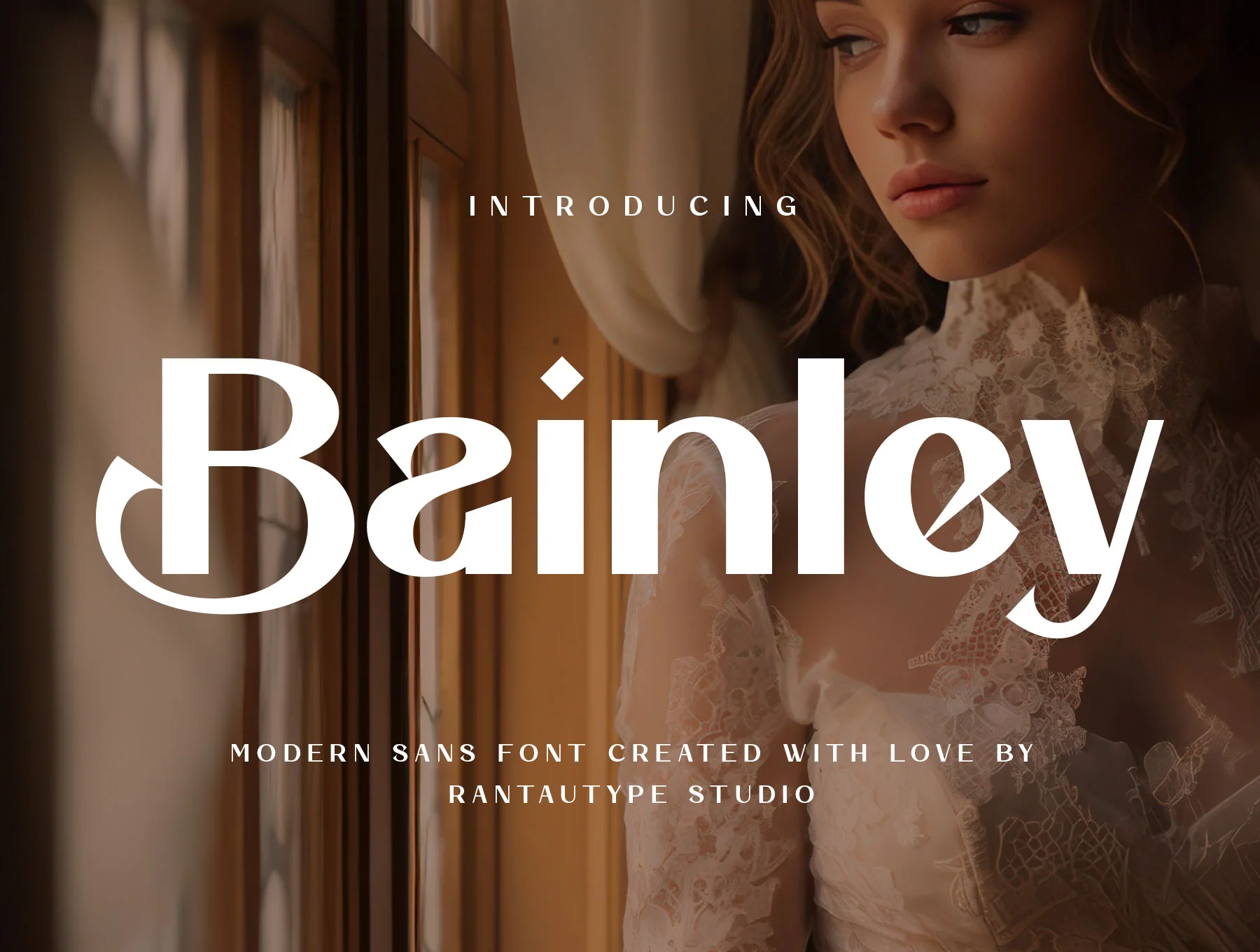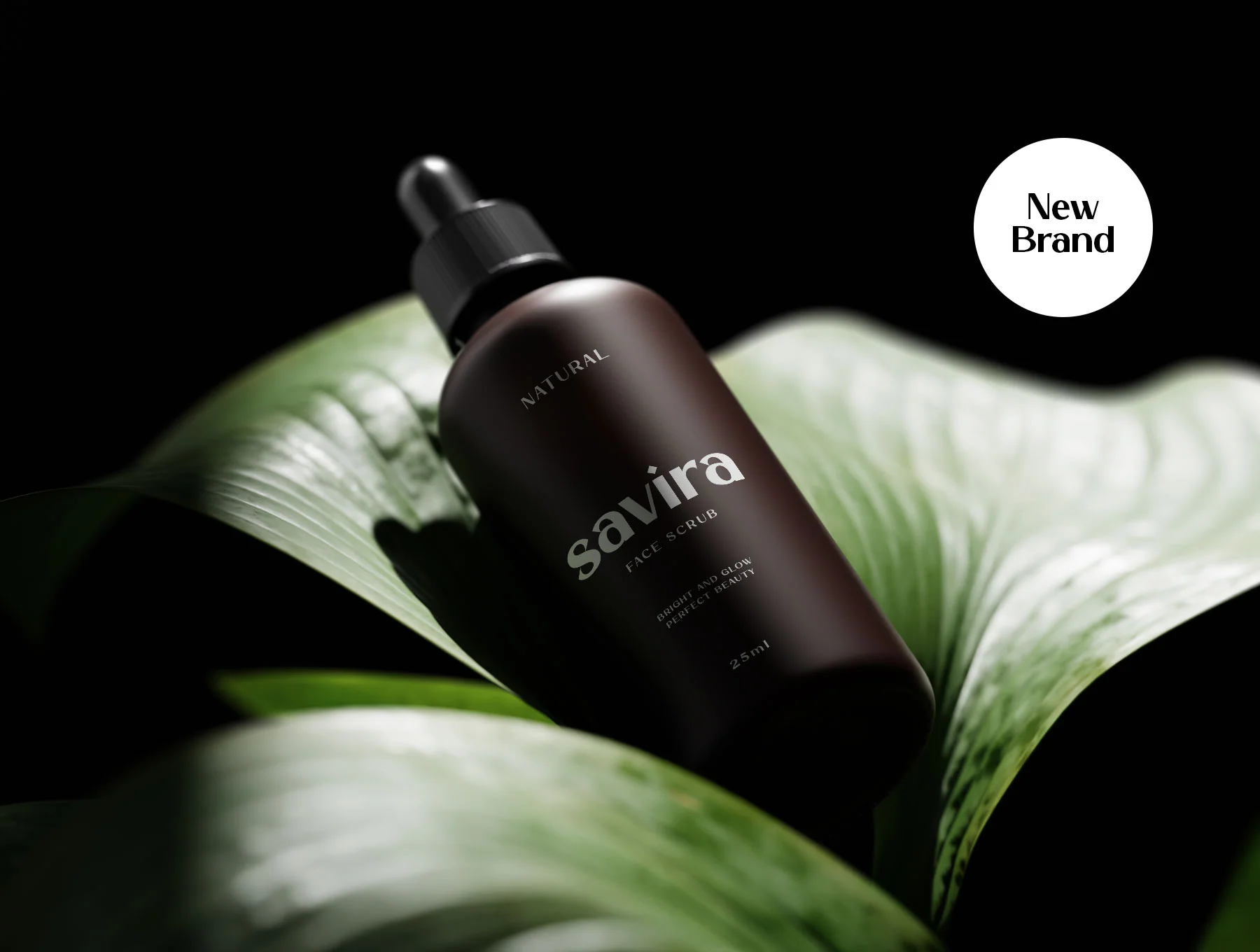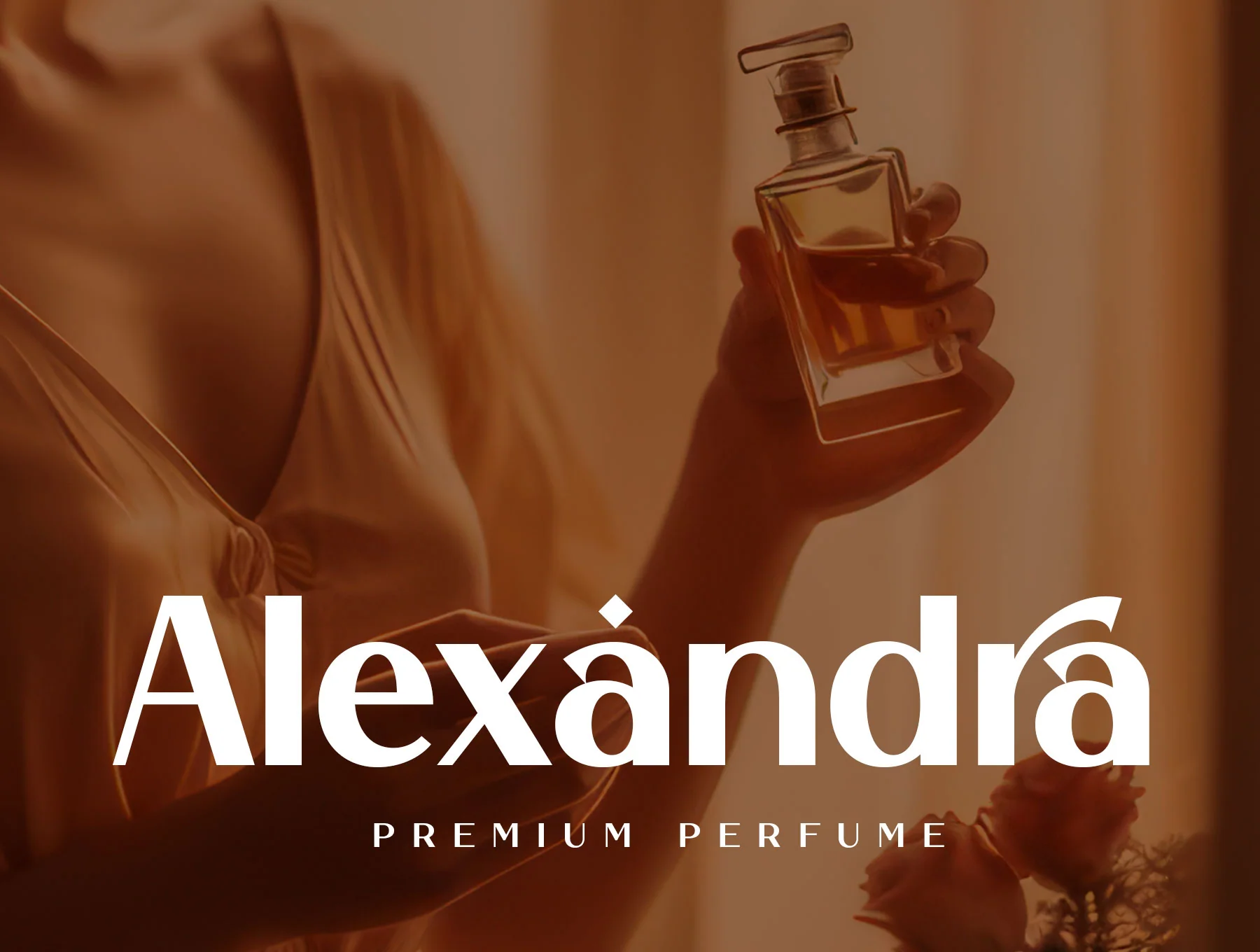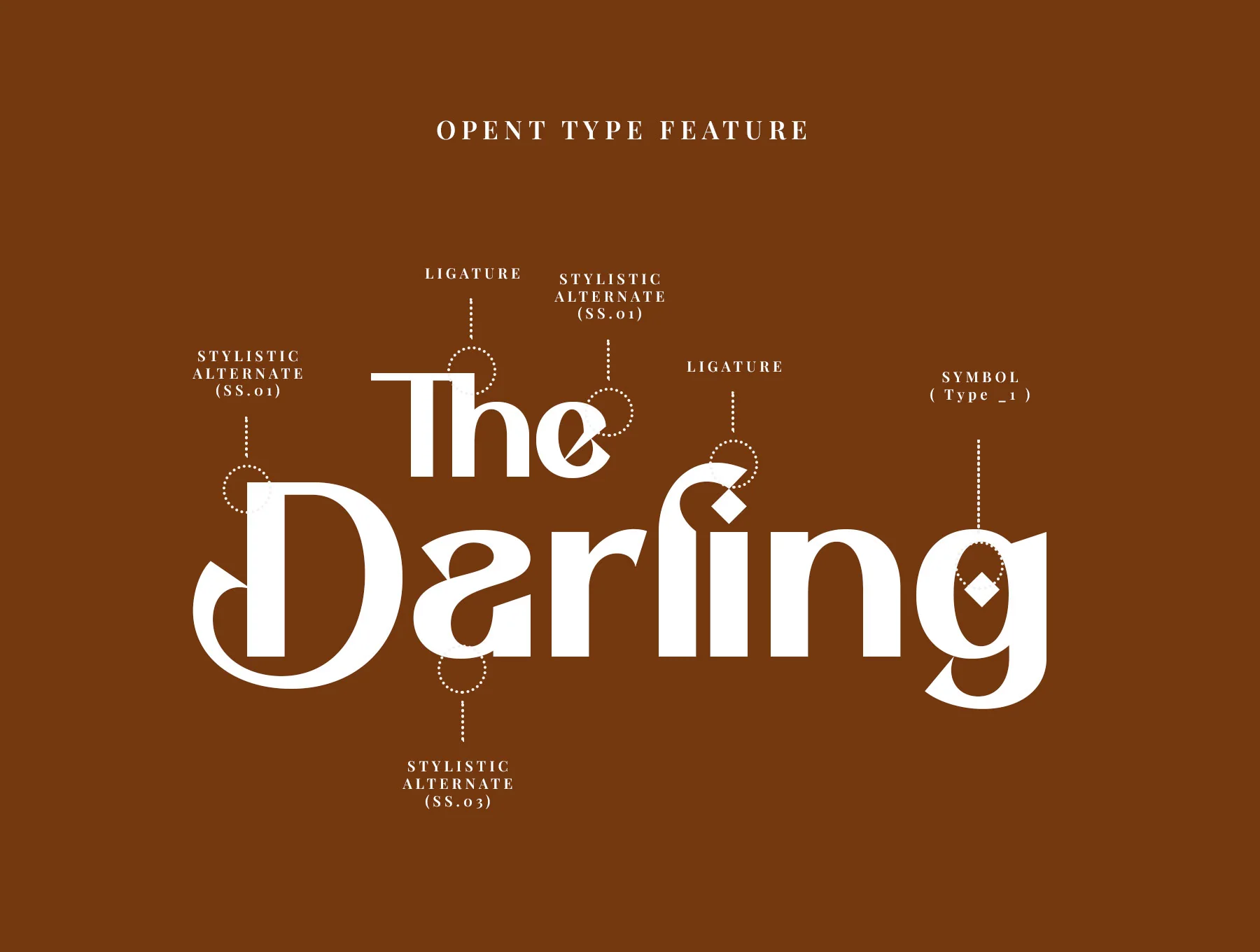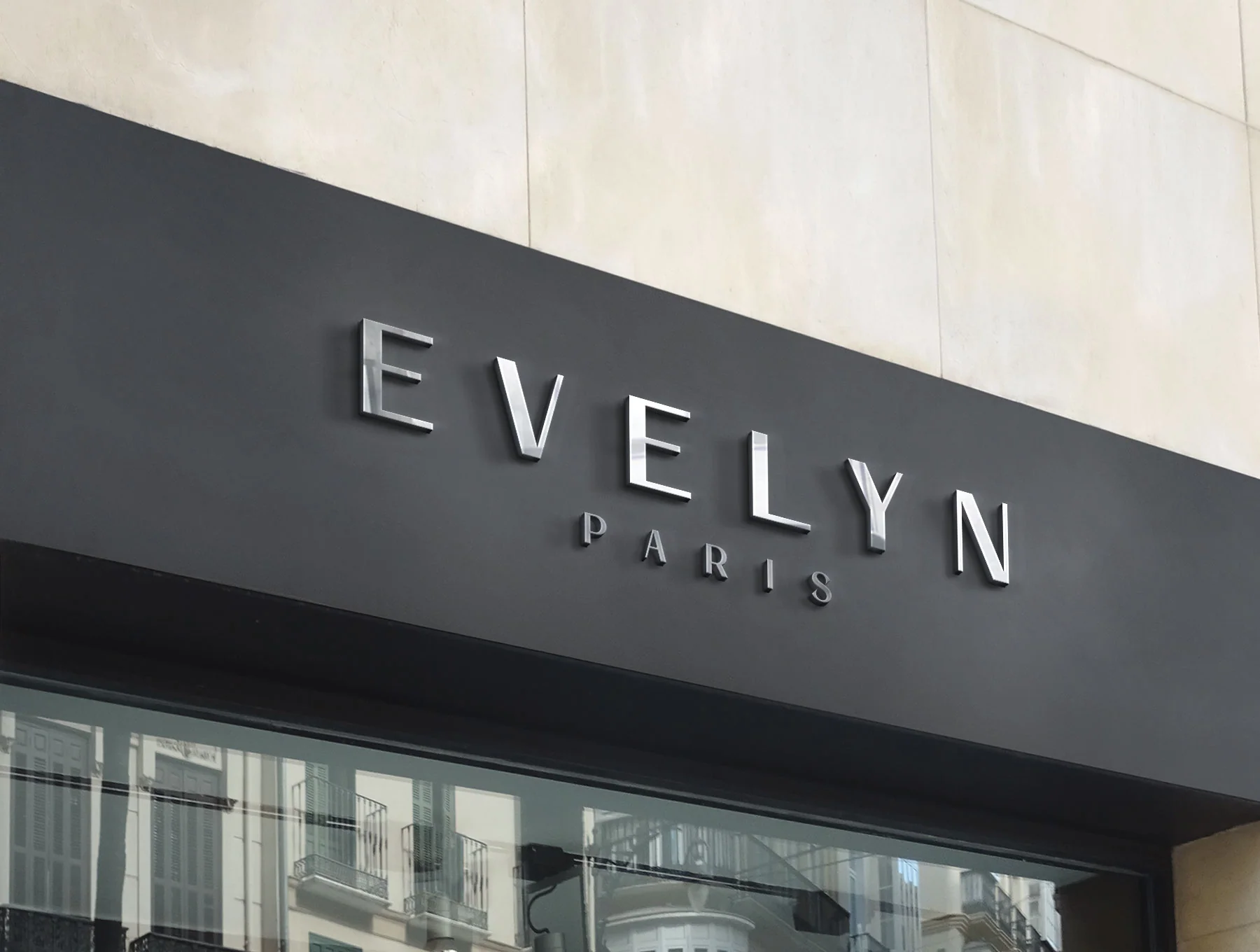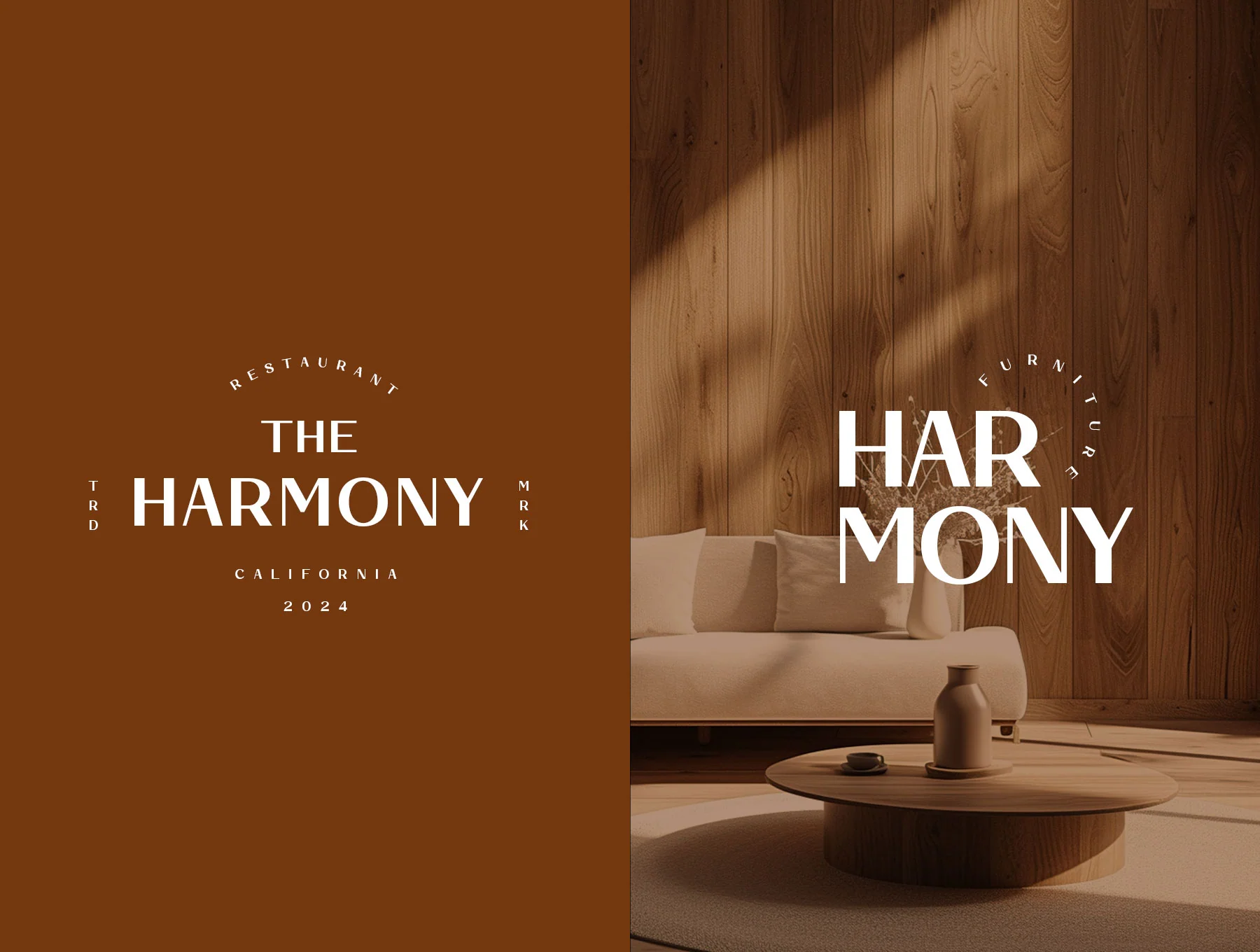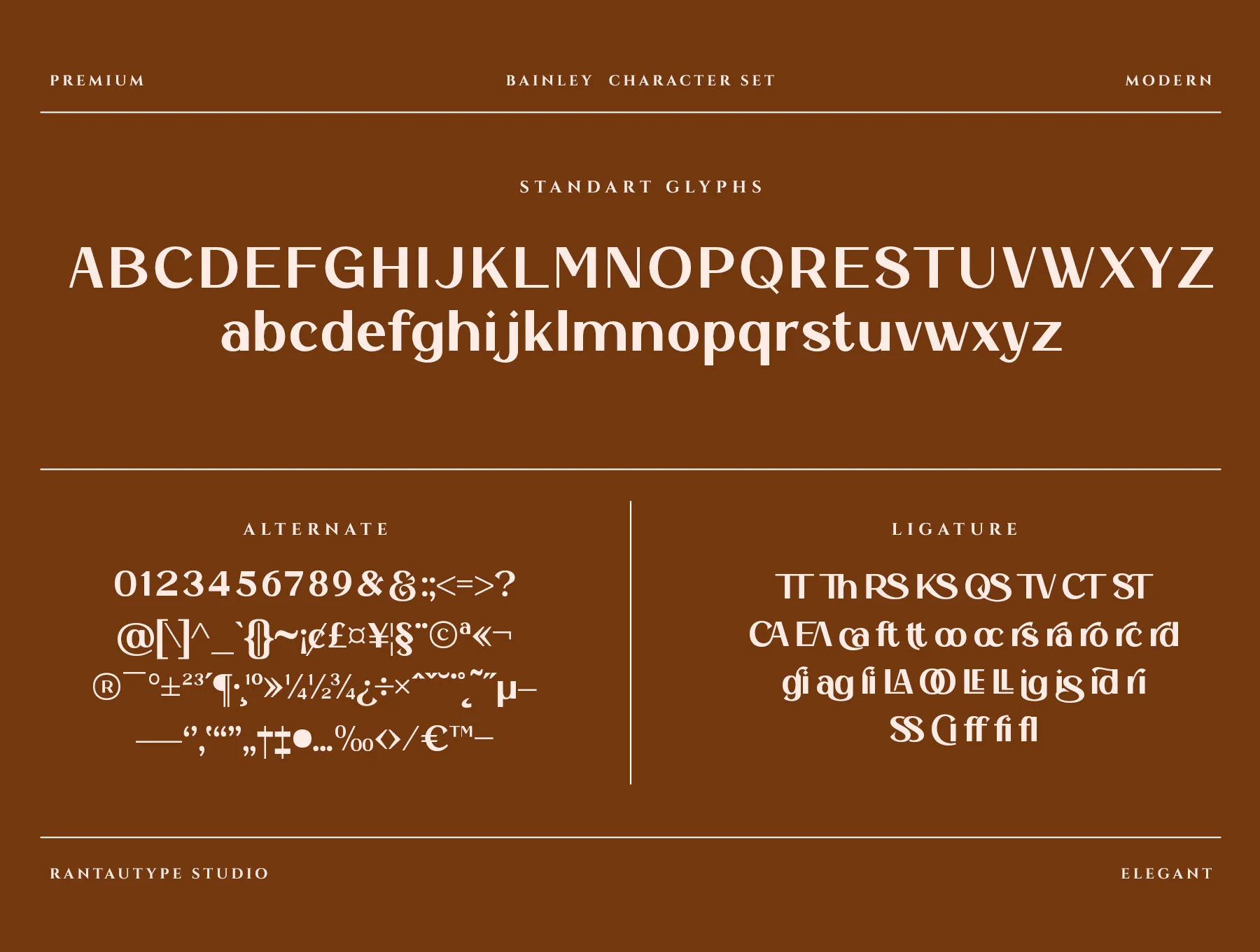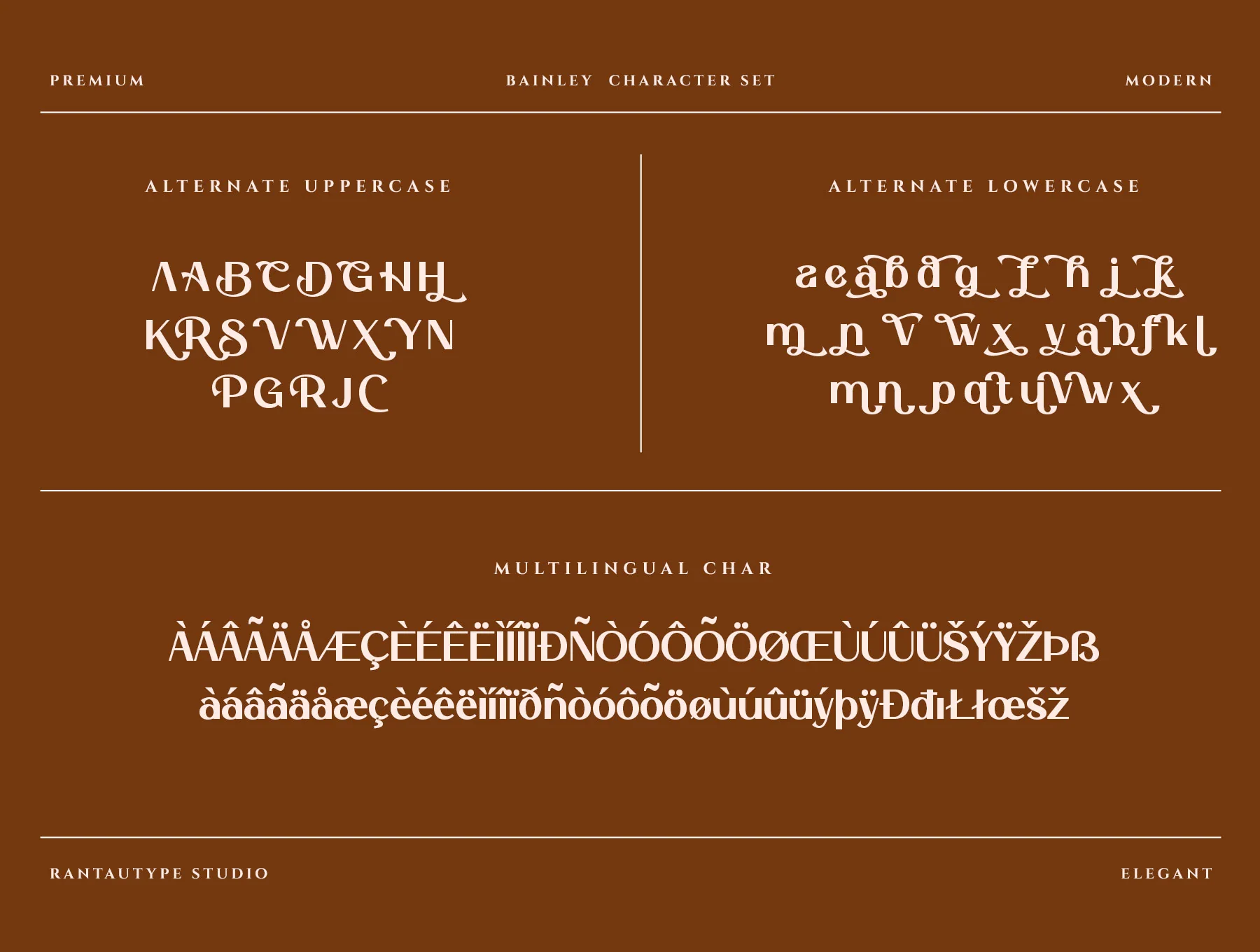
Bainley Modern Feminine Typeface
Bainley Chic Feminine Font
Core character set
Numerals plus practical functions
Alternates with ligature options
Bainley is a contemporary sans serif font with a refined, luxurious look. Ideal for logos, ads, photo watermarks, stationery, branding, magazines, invitations, labels, packaging, and elegant business designs. Includes regular and italic OTF/TTF/WOFF files, standard glyphs, numbers, alternates, ligatures, multilingual support, and easy PC/Mac use in Adobe apps and Word.